23 best wedding font pairings for your big day
Choosing the perfect fonts can elevate every detail of your wedding materials, from invitations to menus to signage. The right font pairings will set the tone for your big day, whether you’re going for timeless and formal or something more modern and playful.
When done well, font combinations blend style, clarity, and cohesion. These 23 wedding font pairings make everything feel thoughtfully designed and easy to read, no matter what the form factor.
Pairing 1: Tangerine + Noto Sans
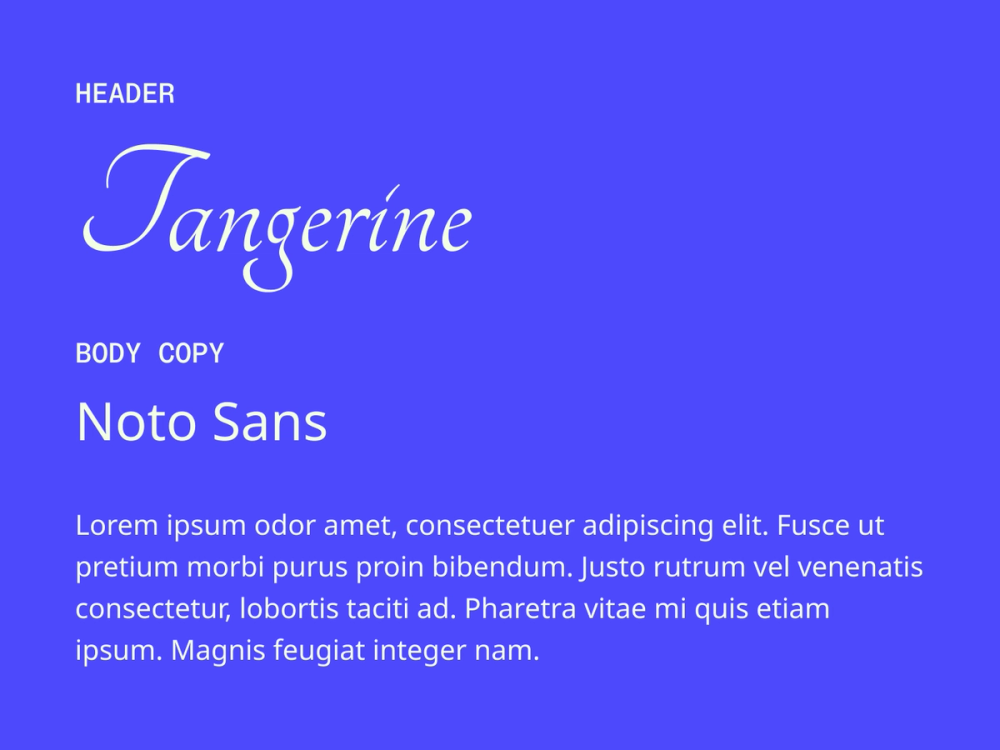
Tangerine’s flowing script adds a romantic, handwritten feel, which is perfect for headlines, welcome signs, or the couple’s names. Meanwhile, Noto Sans brings a clean and modern font structure to smaller details like invitation fine print or guest names on seating charts.
Best for: Romantic, elegant, and classical modern weddings
Pairing 2: Alex Brush + Open Sans
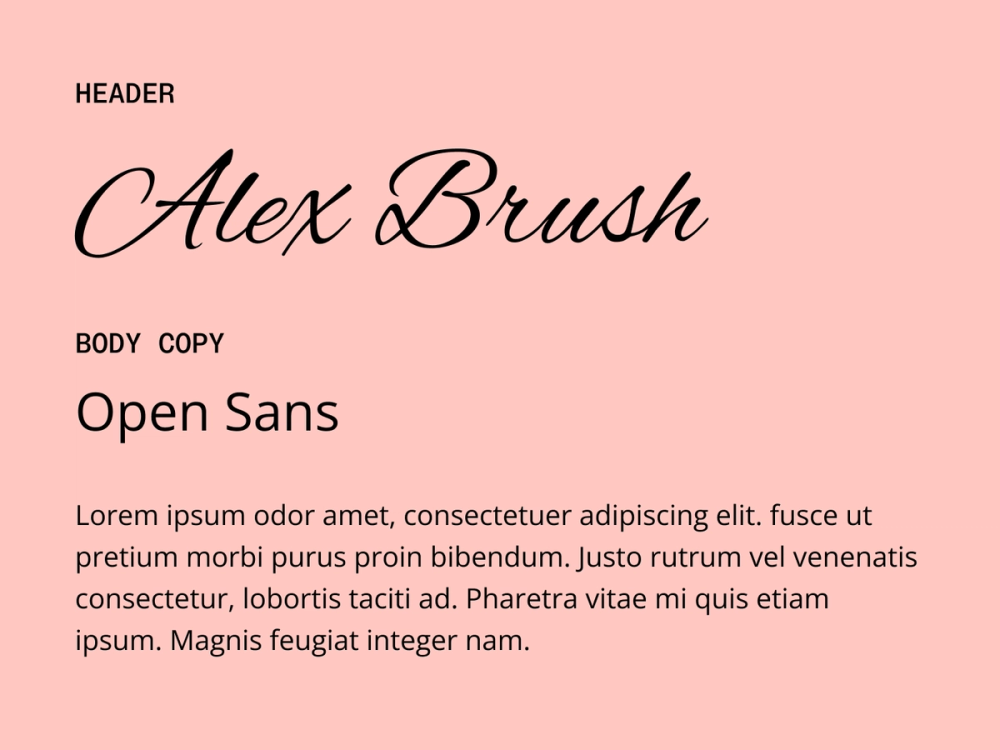
As a brush font, Alex Brush’s graceful curves create a vibe of elegance and tradition, while Open Sans keeps things clean, modern, and readable. Together, they create a balanced look that’s refined but not overly formal.
Best for: Modern, elegant, and casual chic weddings
Pairing 3: Imperial Script + Montserrat
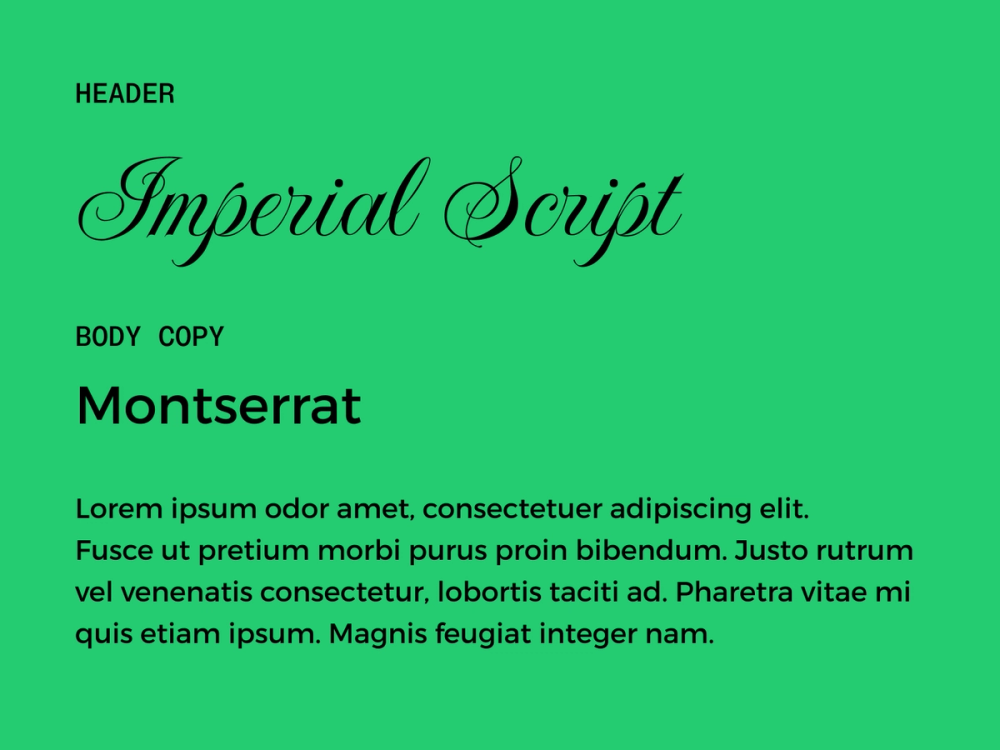
Imperial Script adds a regal, formal touch with sweeping strokes that feel classic and grand. Montserrat is a clean, geometric sans serif that offers a sense of balance and clarity. Together, these fonts create a blend of traditional elegance and modern edge.
Best for: Formal, traditional, and vintage-inspired weddings
Pairing 4: MonteCarlo + Roboto Serif
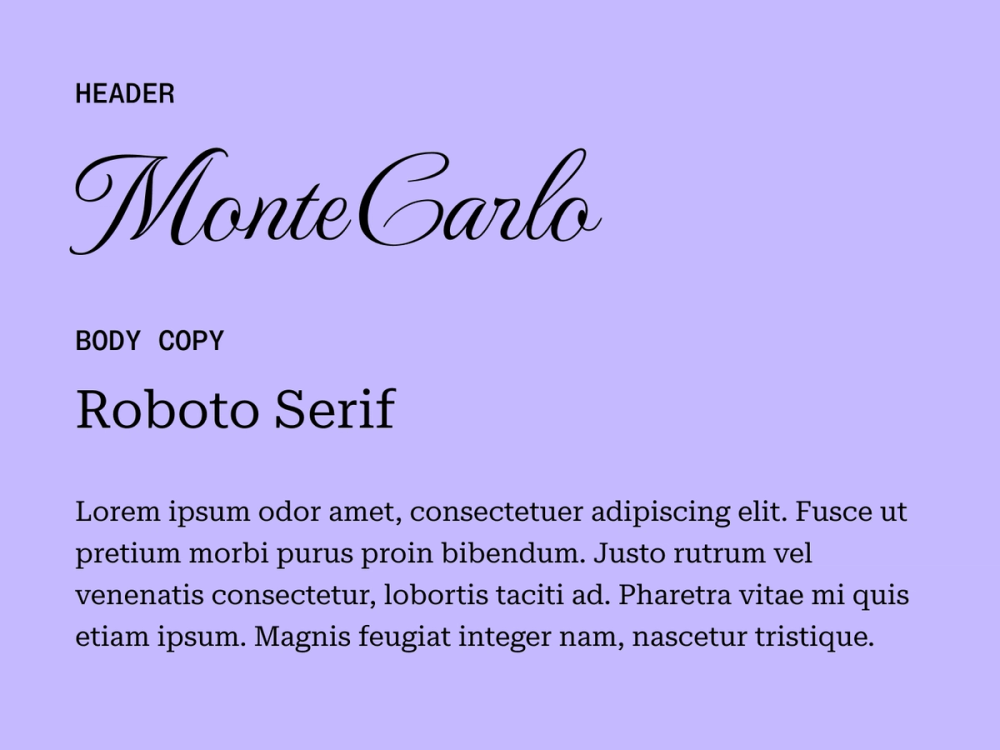
MonteCarlo is an elegant and contemporary script font with a slight italic style, adding charm with excellent legibility, while Roboto Serif keeps body text clean and readable. This pairing balances beauty with practicality for modern weddings.
Best for: Modern, romantic, and contemporary weddings
Pairing 5: Style Script + Oswald
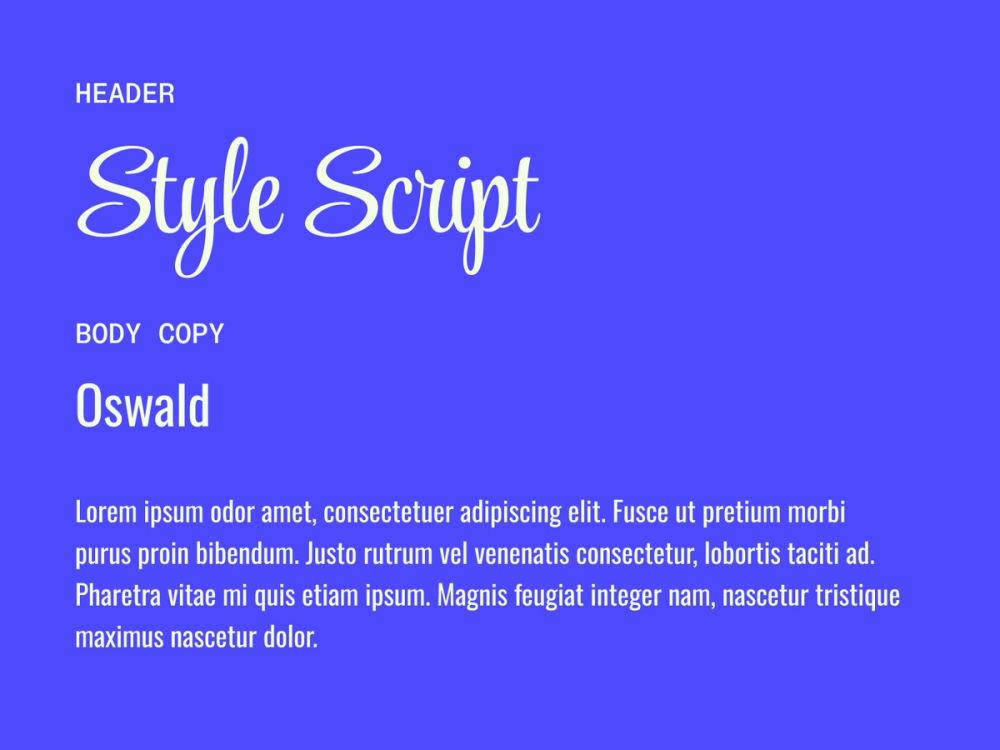
Style Script has a handwritten appearance that is elegant yet casual. As a bold sans serif font, Oswald offers a strong, modern font style that’s versatile for descriptive text across wedding designs. This pairing creates a striking visual contrast, making it a versatile wedding font pairing.
Best for: Modern, classic, and contemporary weddings
Pairing 6: Yesteryear + Raleway
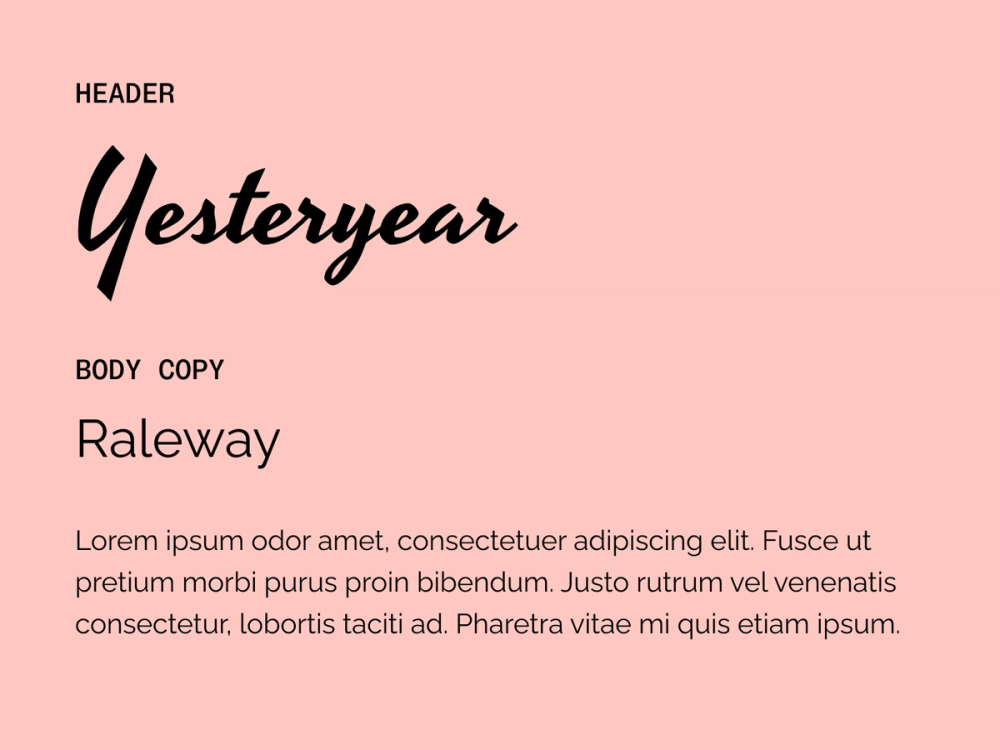
Vintage-inspired font Yesteryear offers plenty of charm with elegant, flowing forms. When paired with Raleway's sleek modern lines, this font combination blends nostalgic character with fresh, contemporary polish.
Best for: Classical, vintage, and retro-inspired weddings
Pairing 7: Pinyon Script + Forum
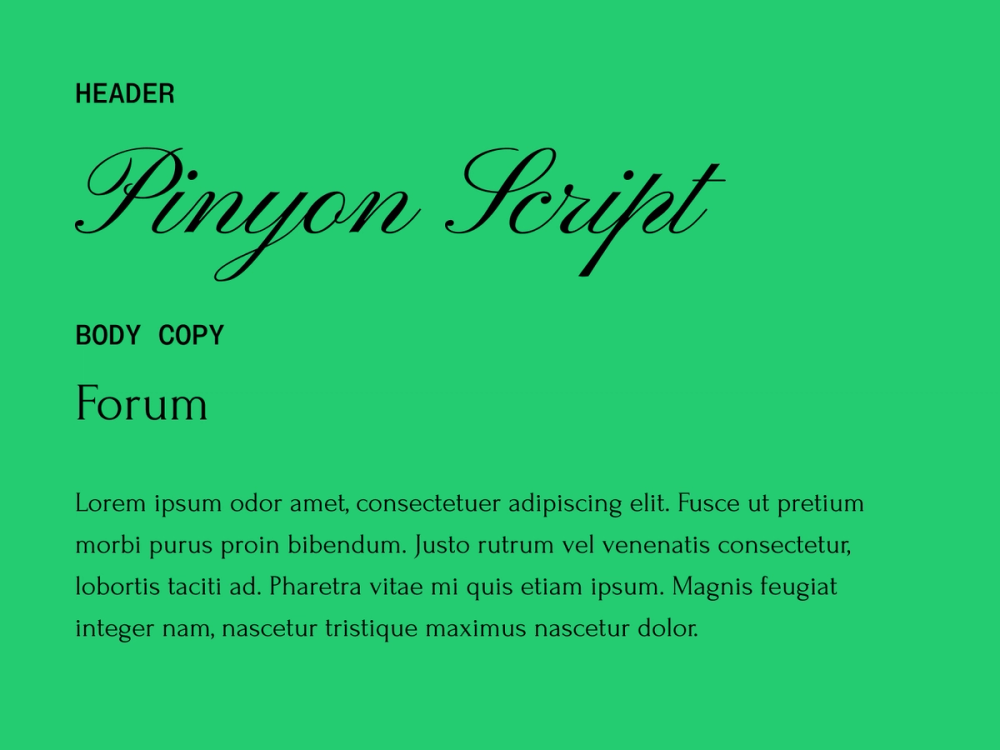
Pinyon Script brings old-world elegance with a warm, decorative style. It evokes a sense of tradition and refinement while maintaining a friendly appearance.
Forum is a classic and elegant serif font with clean, sharp lines that’s versatile for smaller, descriptive text across wedding materials. Together, this font duo evokes timeless sophistication.
Best for: Classic, formal, timeless, and vintage-inspired weddings
Pairing 8: EB Garamond + Source Sans Pro
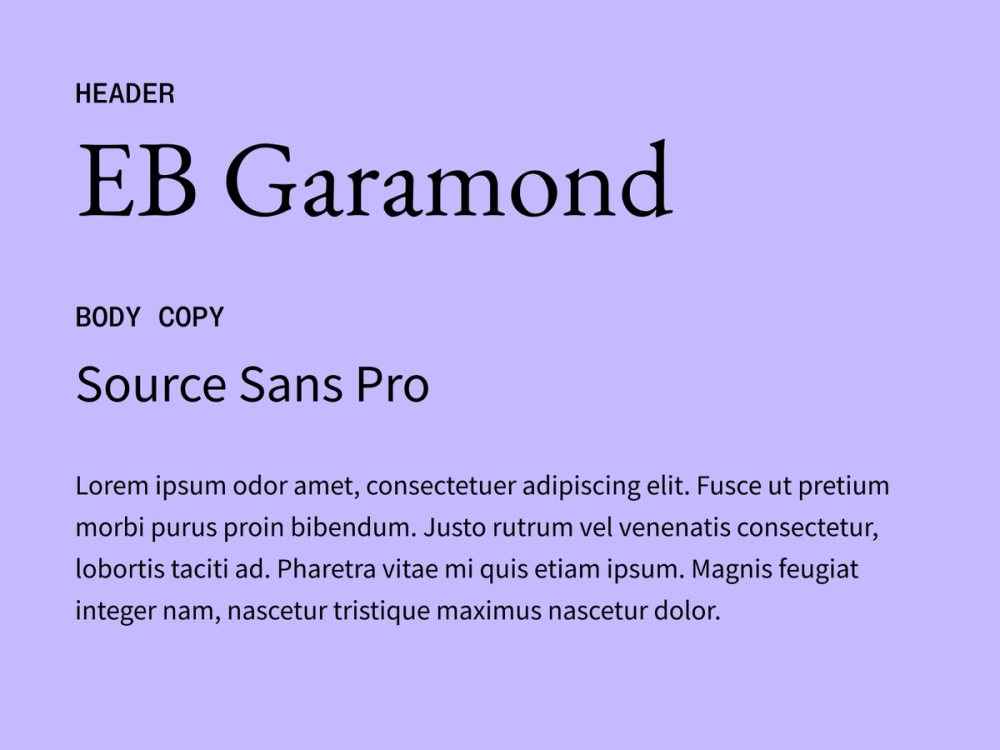
EB Garamond brings classic refinement, while Source Sans Pro keeps things modern and clean. Together, this versatile duo creates an elevated aesthetic without being too ornate—perfect for traditional or semi-formal designs.
Best for: Formal, semi-formal, and classic weddings
Pairing 9: Playfair Display SC + Libre Baskerville
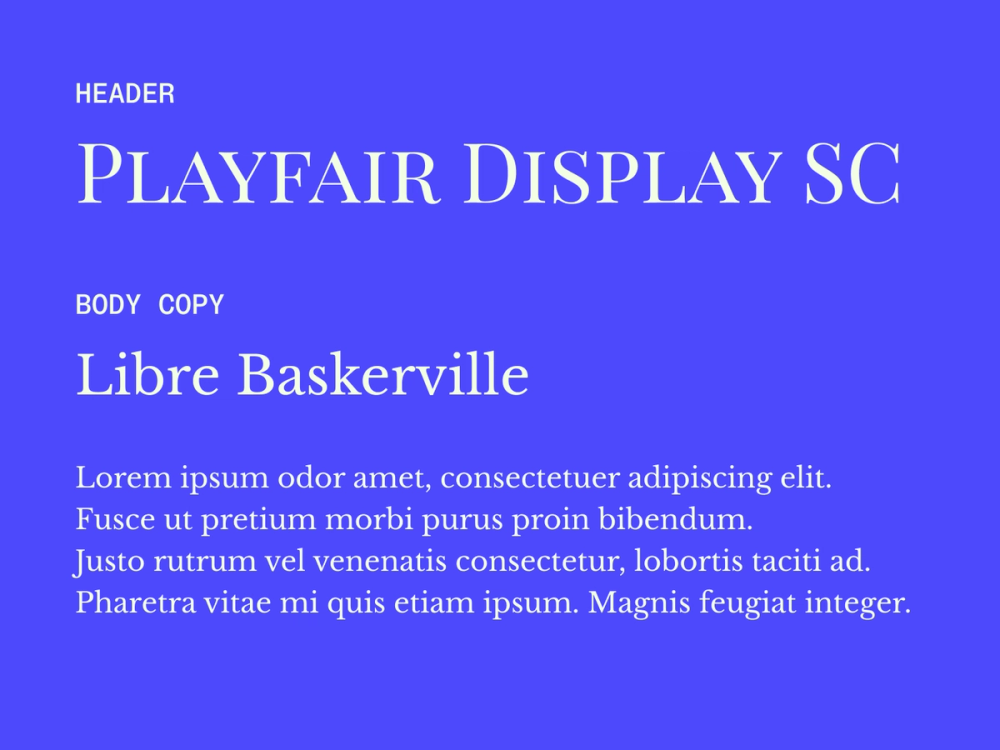
Playfair Display SC adds dramatic flair with its high-contrast small caps. Libre Baskerville balances it out with elegant readability. Together, they feel polished and editorial without using traditional script fonts.
Best for: Elegant, formal, and timeless weddings
Pairing 10: Pinyon Script + Spectral
This pairing combines the elegant, flowing lines of Pinyon Script with Spectral's clear, readable versatility. Pinyon Script, a beautiful and romantic calligraphy font, adds a touch of classic sophistication and charm. Meanwhile, Spectral, a robust and highly legible serif typeface, provides a strong, grounding contrast, ensuring excellent readability and a balanced, refined aesthetic. See this pairing in action with Figma’s gradient type wedding invitation template.
Best for: Formal, upscale, and classically elegant weddings
Pairing 11: Bilbo + Arvo
Bilbo's flowing, cursive strokes add romance and movement, while Arvo’s sturdy slab serifs bring balance and structure. This combination blends warmth with formality for a classic and modern look.